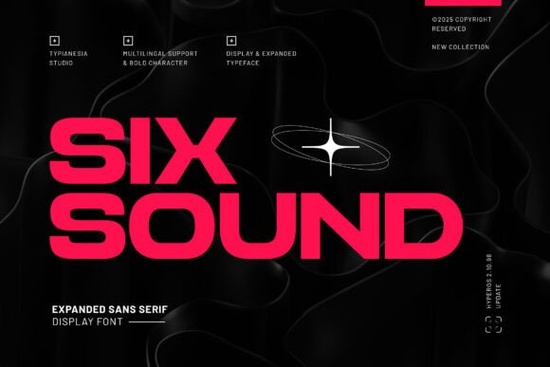
If you’re hunting for a typeface that feels both ultra-modern and unmistakably bold, Six Sound Font deserves a spot on your shortlist. It’s a wide, clean sans serif with a futuristic personality that lands right at the intersection of gaming culture, tech branding, and high-impact graphic design. Designers, crafters, and small business owners who need type that grabs attention without sacrificing readability will find a lot to like here.
Unlike condensed or delicate display fonts, Six Sound Font spreads out with generous proportions and sturdy vertical strokes. That extra width gives it a commanding presence on screens, merchandise, and packaging. The design stays crisp at large sizes perfect for esports team logos and YouTube channel art yet still reads comfortably in short paragraphs, making it a practical choice for bold headers and interface labels.
What kind of projects work best with Six Sound Font?
This font thrives anywhere a futuristic, high-energy look is part of the brief. Think sci-fi movie posters, mobile game titles, tech startup logos, and apparel graphics. The clean geometric construction means it doesn’t get lost in complex backgrounds, so streamers and content creators can use it for overlays, alerts, and branded merchandise with confidence.
For print-on-demand sellers, the bold shapes hold up beautifully on t-shirts, hoodies, mugs, and phone cases. Because the letterforms are so well defined, the print results stay sharp even when scaled up. If you’re building a merchandise collection around a modern gaming or tech theme, pairing this font with your designs helps create a consistent visual identity. If you need an alternative that’s equally heavy but a bit softer around the edges, you might also explore Bold Dream, another reliable choice for thick, impactful headers.
What characters and extras are included?
Fonts that look great in previews sometimes fall apart when you start typing real sentences. That isn’t the case here. Six Sound Font covers both uppercase and lowercase, plus numerals, punctuation, and a healthy set of alternates and ligatures. You get stylistic options that let you tweak the appearance of certain letter pairs, which helps customise titles and logos without switching typefaces.
Multilingual support is built in, so you’re not limited to English-only projects. Whether you’re designing for a European audience, creating bilingual packaging, or just want to include accented characters, the glyph set has you covered. For designers and crafters who sell digital assets or physical products internationally, that broad language reach is a genuine timesaver.
How does it compare to other futuristic sans serif fonts?
The expanded, almost square proportions set Six Sound Font apart from many common tech-style typefaces. Where some futuristic fonts go ultra-thin or heavily distressed, this one stays clean and polished without losing its bold edge. That makes it easier to use across both digital and print projects without extra cleanup.
If you’d like to compare it with similar styles, Vectura offers a slightly more angular, streamlined approach that works well for app interfaces and minimal branding. On the other end of the spectrum, Glasgow Grotesk gives you a geometric sans with a slightly softer, more neutral mood handy if you want a futuristic undertone without the full-blown sci-fi aesthetic. Having a small toolkit of modern sans serifs lets you match the exact energy of each project.
What font pairings work well with Six Sound Font?
Because this font has such a strong personality, it pairs best with quieter supporting typefaces. A simple humanist sans or a light serif can balance the heavy, wide shapes and keep layouts from feeling overwhelming. For instance, try using Six Sound Font for main headlines and a modest, open sans for body copy on packaging or website banners.
If you’re designing a gaming poster or a streaming overlay, you could layer it with a monospaced coding font for a cyberpunk-inspired contrast. The key is to let the display font do the heavy lifting while the secondary typeface handles readability and hierarchy. Experimenting with different weights and sizes gives you a custom-branded look without overcomplicating the design.
Once you’ve ticked those boxes, you’ll be ready to put this bold, clean typeface to work in your next project.